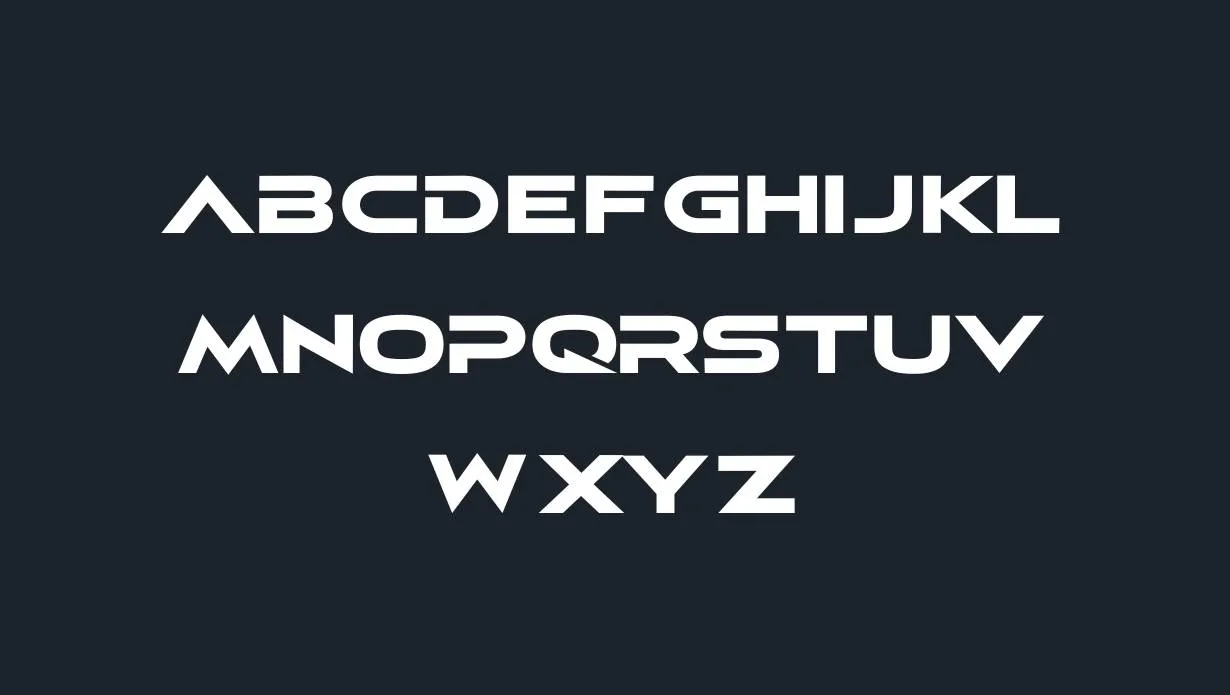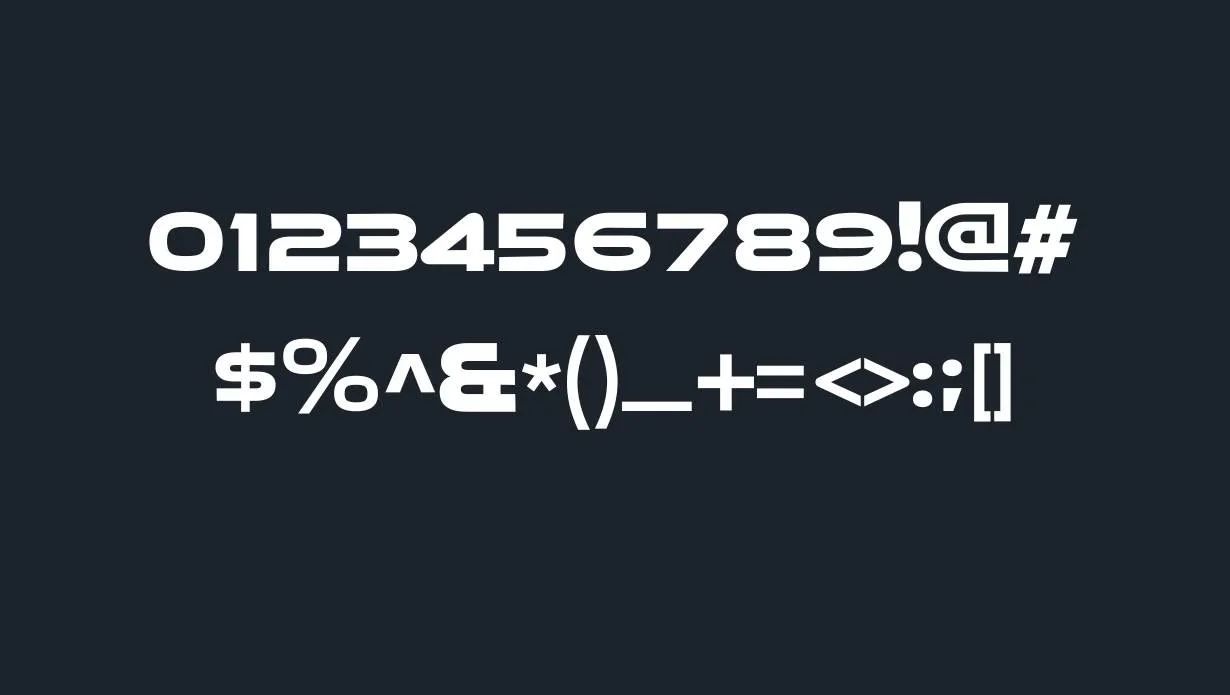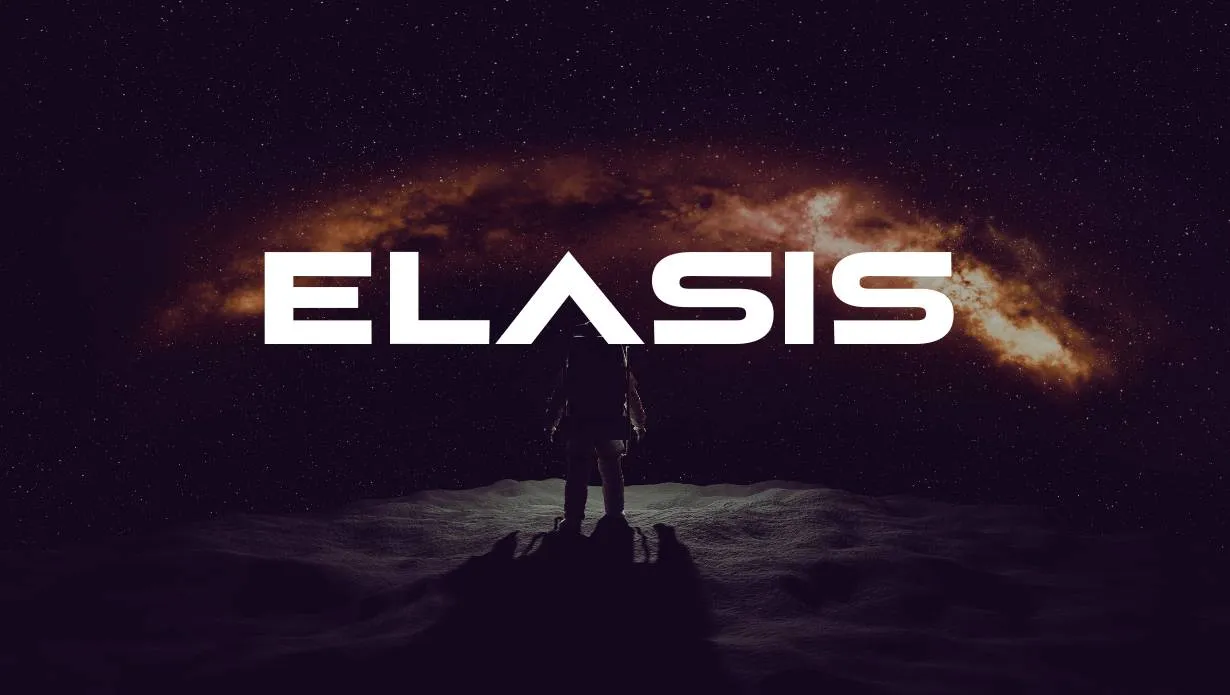
About Elasis Font Free Download
Elasis is a futuristic, techno‑style display typeface with sharp, geometric letterforms that convey a modern, sci‑fi aesthetic. Its bold, angular shapes make it ideal for headlines, logos, posters, and designs that require a strong visual impact. The font’s clean and striking style works well in digital interfaces, branding projects, and themed graphics. Elasis adds a contemporary edge to creative compositions while maintaining legibility and uniform structure.